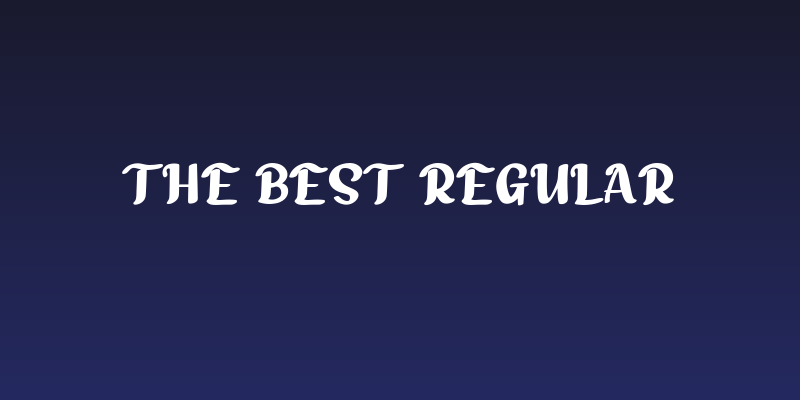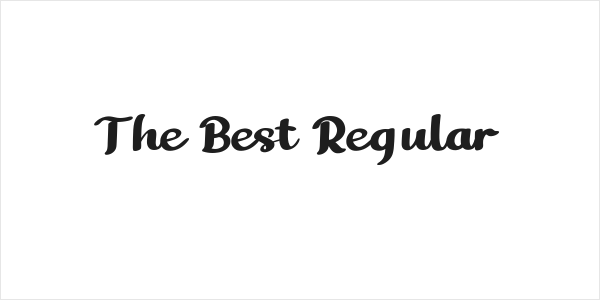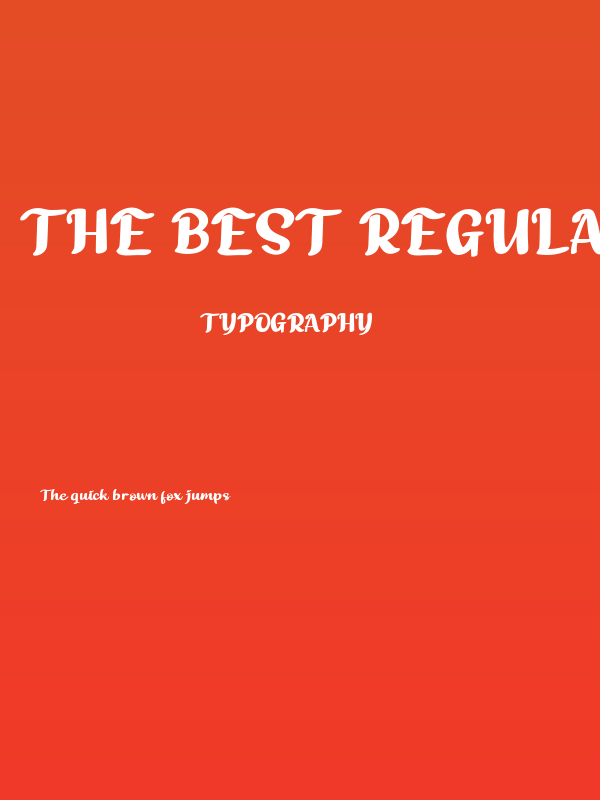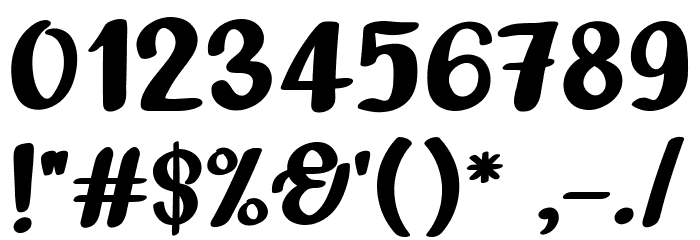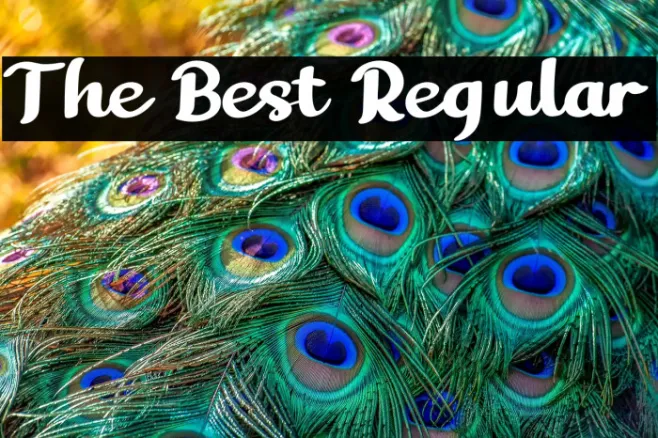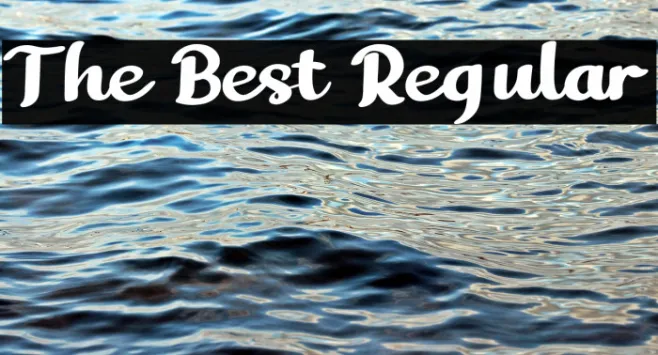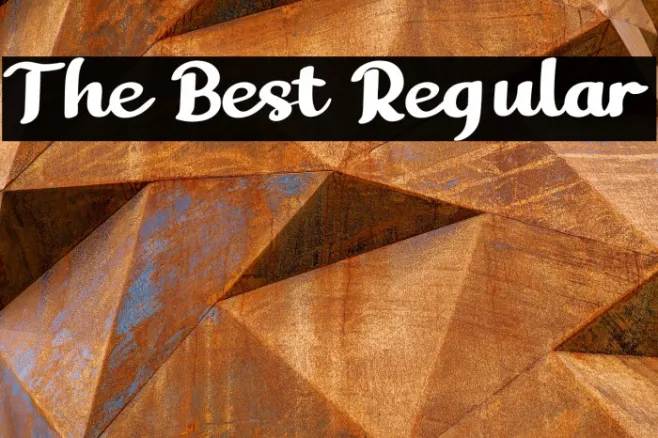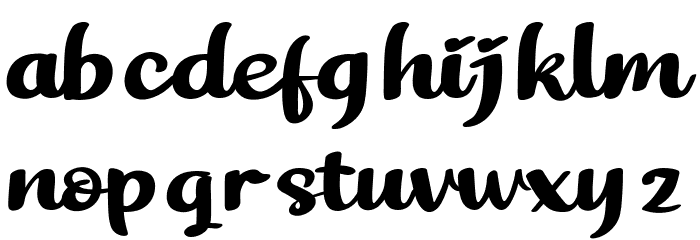
The Best Regular Font
The Best Regular Description
This font features a bold and expressive style with a handwritten flair. The uppercase letters are robust and dynamic, while the lowercase letters maintain a fluid and cursive quality. The numerals are equally bold, providing a consistent visual weight across all characters. Special characters are designed with the same attention to detail, ensuring they blend seamlessly with the rest of the font. The overall appearance is both playful and sophisticated, making it suitable for a variety of creative applications.
| Proposed Projects | Ideal for branding, packaging, invitations, and creative projects that require a personal touch. |